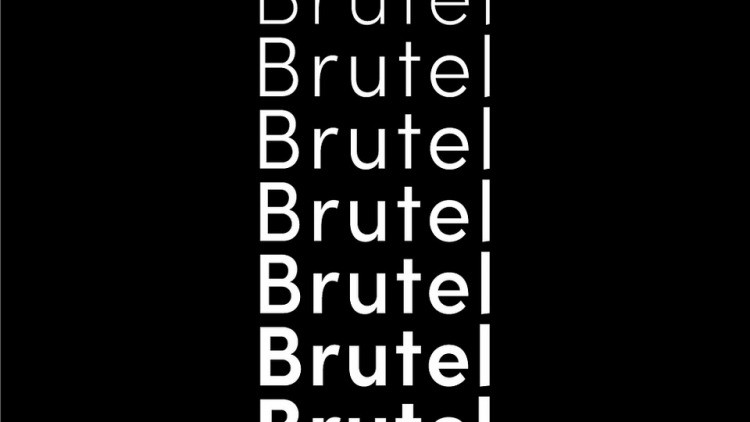
Brutel Sans Serif Font
It’s an elegant, detailed transitional sans serif typeface created by Iordanis Passas. The family consists of 9 weights ranging from Thin to Black with Latin and Greek support.
Brutel is a versatile, modern sans, highly legible as a text font and with a clean and sharp look as a display font at larger sizes.